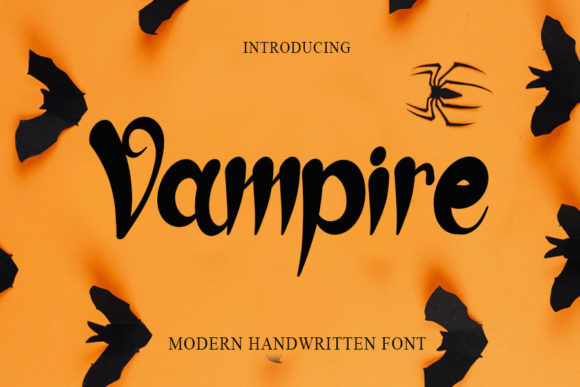
Unleashing the Allure of the Vampire Font
There is a specific electricity that happens when a design element perfectly captures the intended mood. It is the difference between a project that merely informs and one that captivates. Enter the Vampire Font, a premium font that transcends the ordinary. As a handwritten font, it does not just sit on the page; it dances. It is a beautiful and versatile handwritten font that brings a distinct, organic energy to your work. Whether you are a seasoned graphic artist or a small business owner looking to elevate your brand, understanding how to wield a creative font like this can fundamentally change how your audience perceives your message.
The Anatomy of Allure: Visual Style and Personality
When we talk about modern typography, we often focus on geometry and structure. However, the Vampire Font takes a different approach. It leans into the imperfections and fluidity of the human hand. Visually, this typeface features sweeping curves, sharp contrasts in stroke width, and a rhythm that feels spontaneous yet controlled. It strikes a balance between the elegance of a script font and the raw energy of a quick sketch.
The personality of the Vampire Font is undeniably charismatic. It carries a "stunning impact" because it feels personal. In an era dominated by rigid sans serif fonts and predictable serif fonts, a handwritten font with this much character offers a breath of fresh air. It suggests authenticity and creativity. When a viewer sees this text, they subconsciously register that a human touch was involved in the creation of the design, which builds an immediate, albeit subtle, connection.
Where the Vampire Font Truly Shines
While this font is versatile, it is not a "one size fits all" solution for body text. Its true power lies in display settings where impact is the priority. Think of the headline on a magazine cover, the title of a YouTube video, or the main text on a wedding invitation. In these contexts, the Vampire Font acts as a visual anchor.
For entrepreneurs and small business owners, this font is a secret weapon for brand identity. If your brand voice is bold, artistic, unconventional, or edgy, this typeface aligns perfectly with that ethos. It works exceptionally well in:
It is important to recognize the context. A display font like the Vampire Font is designed to be seen, not necessarily to be read in long paragraphs. Using it for a 500-word blog post would likely result in eye strain. However, using it for a headline that leads into a clean, legible body of text creates a perfect visual hierarchy.
Strategic Application: Pairing and Hierarchy
One of the most common questions regarding modern typography is how to pair fonts without creating visual chaos. The strength of the Vampire Font lies in its expressiveness, which means it needs a grounding partner. A serif font like Georgia or a clean sans serif font like Helvetica or Montserrat often works best.
Imagine a flyer for a music festival. The headline, "Summer Beats," is set in the Vampire Font. It is large, energetic, and sets the mood immediately. Below it, the schedule and ticket information are set in a highly legible, neutral sans serif font. This contrast allows the creative font to handle the emotional heavy lifting while the utility font handles the data transfer. This technique ensures your design assets look professional rather than cluttered.
Practical Considerations for Designers and Creators
Before integrating the Vampire Font into your next project, it is worth doing a quick evaluation. First, look at the included styles. Many premium fonts come with alternate characters, ligatures, or different weights. These features are invaluable for customizing the look so that your design doesn't look like a template. Swapping out a standard "a" for a stylistic alternate can completely change the vibe of a logo.
Second, consider readability at your intended size. As a handwritten font, legibility can vary based on the background complexity. Always test the text against your chosen imagery. If the background is busy, you may need to add a semi-transparent overlay or a drop shadow to ensure the Vampire Font remains the focal point.
In conclusion, the Vampire Font is more than just a collection of glyphs; it is a tool for expression. It allows content creators, marketers, and crafters to inject personality into their work instantly. By understanding its visual weight, pairing it wisely, and applying it to the right contexts, you can leverage this handwritten font to create designs that are not only beautiful but also strategically effective. It adds that "lovely spark" that turns a good design into a great one.